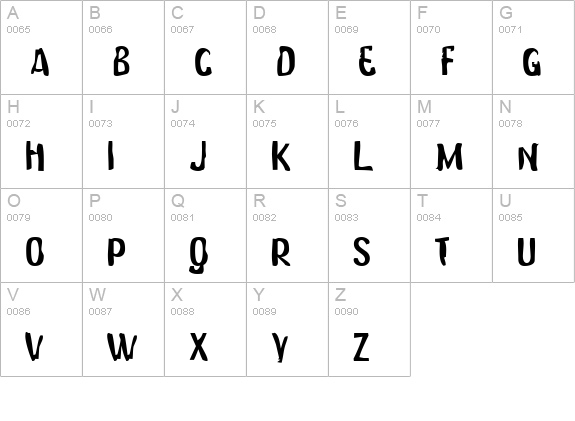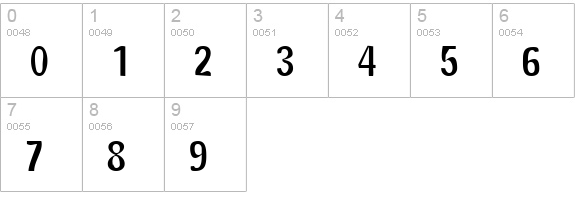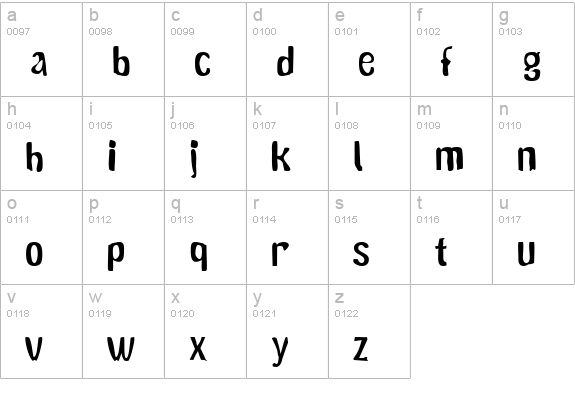
Doggy Regular Font Details
Doggy Regular is the standard, neutral variant in the Doggy typeface family \xE2\x80\x94 well suited to general body text, paragraphs, and standard typographic work.
Introducing Doggy Regular font, a charming and playful typeface that will bring a touch of whimsy to your designs. With its friendly and approachable appearance, Doggy Regular is perfect for adding a fun and lighthearted feel to any project. This delightful font features smooth lines and rounded edges, giving it a warm and inviting look. Whether you're working on a poster, greeting card, logo, or any other creative project, Doggy Regular will add a unique and eye-catching element. Best of all, Doggy Regular is completely free to download at FontsMarket.com. So why wait? Add this adorable font to your collection today and let your creativity shine!